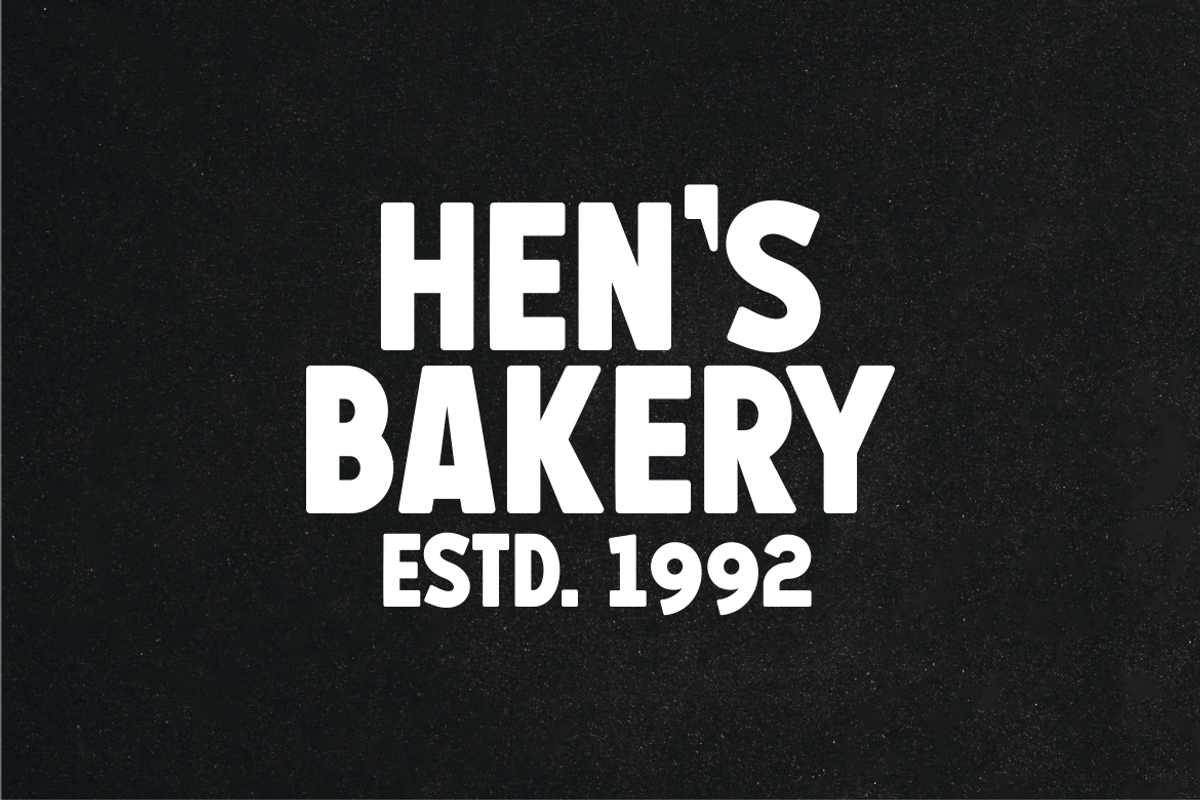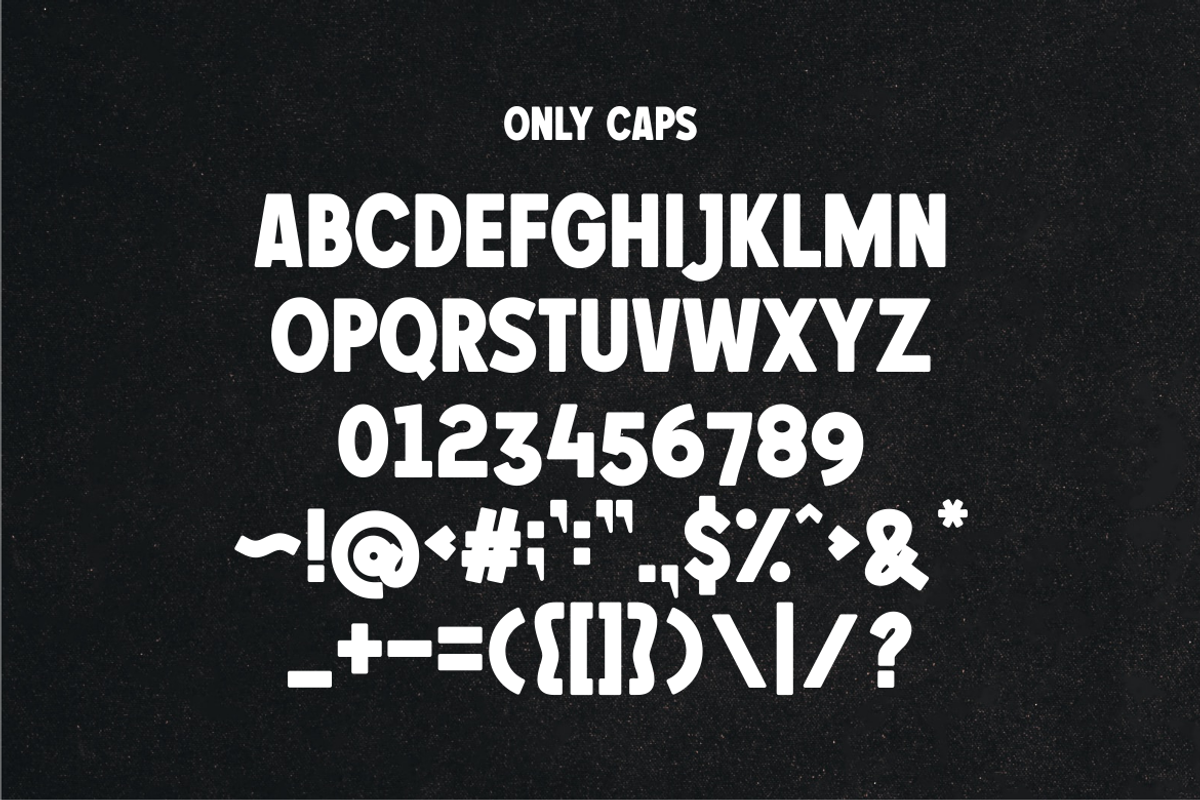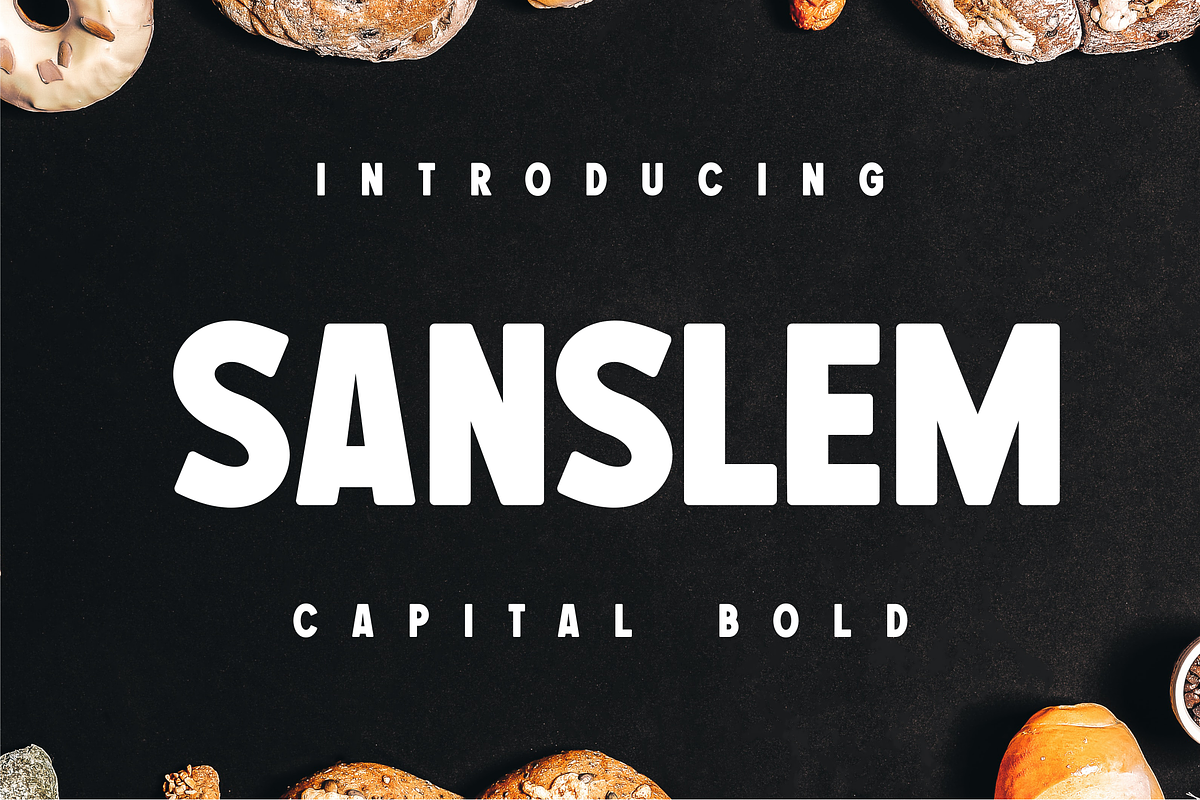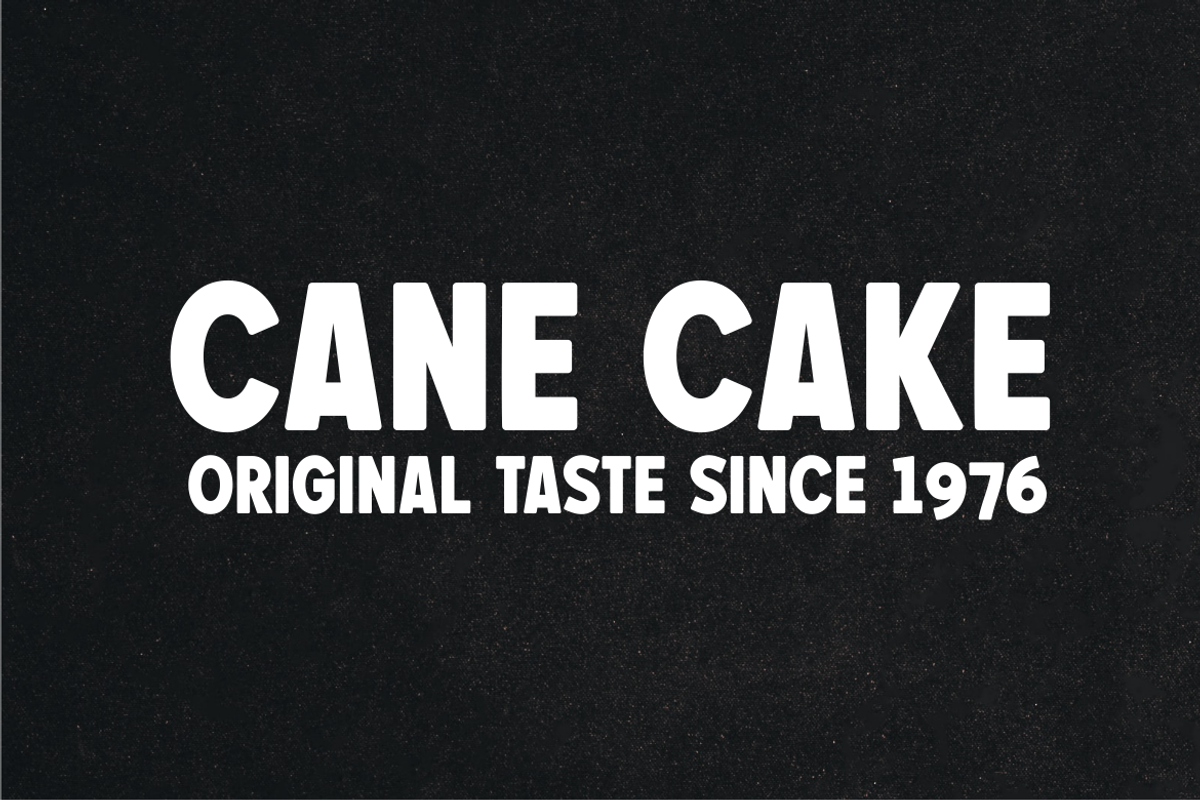
Sanslem Cake / Bakery Font Edition
Font for companies or cake and bakery shops. This font is very suitable because it is taken from the philosophy of dry bread plus jam, so this font was created.